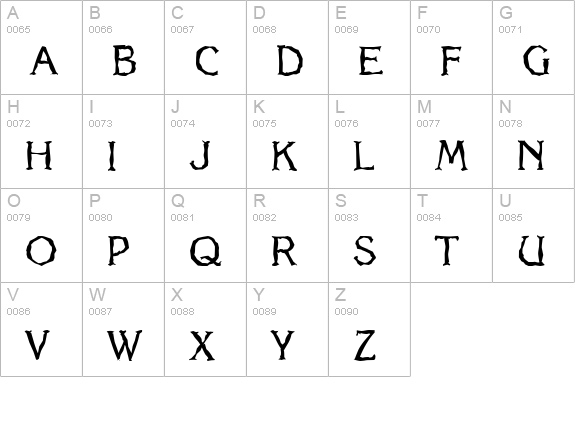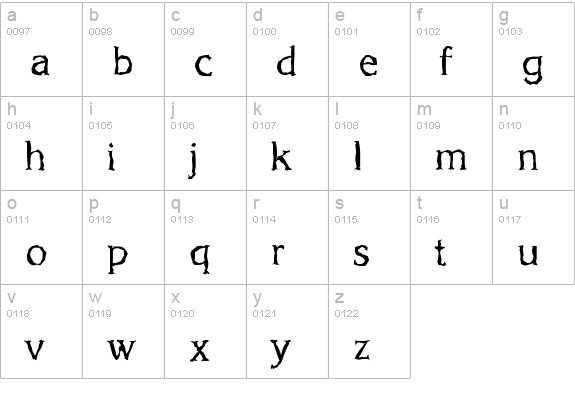
KorinthRandom-Regular is the standard, neutral variant in the KorinthRandom typeface family \xE2\x80\x94 well suited to general body text, paragraphs, and standard typographic work.